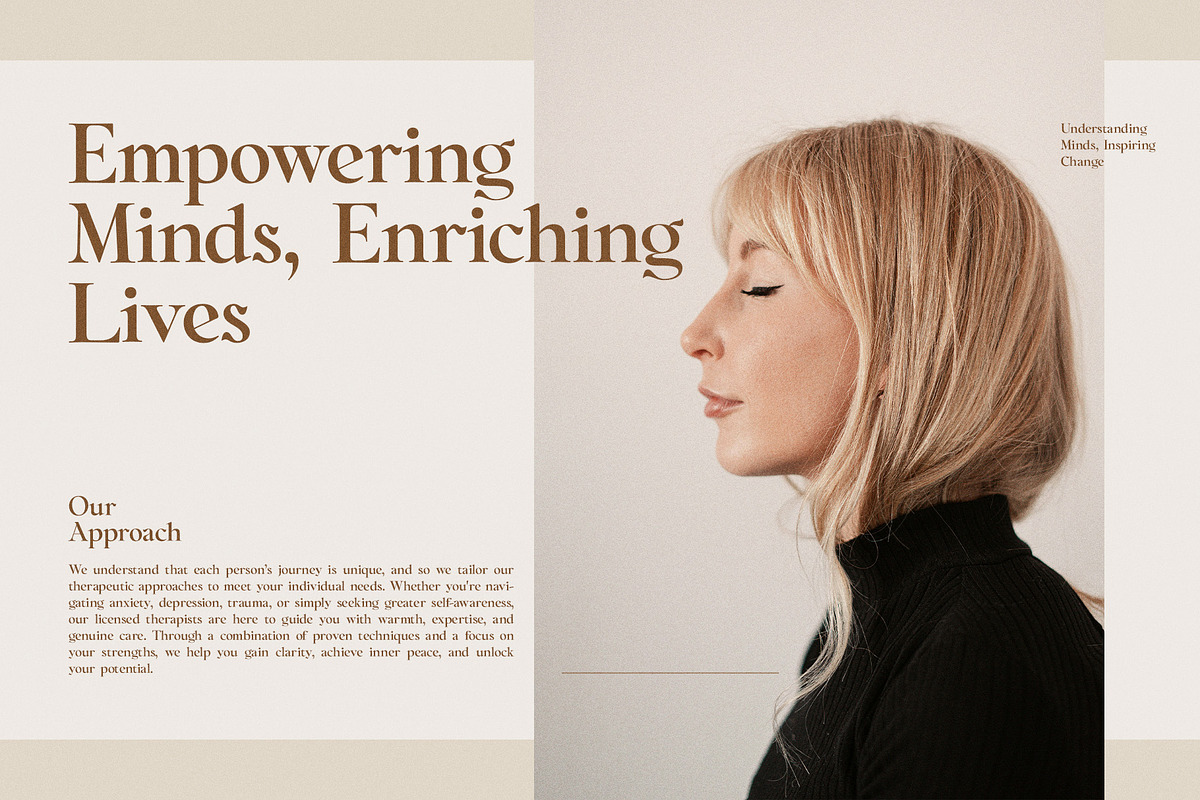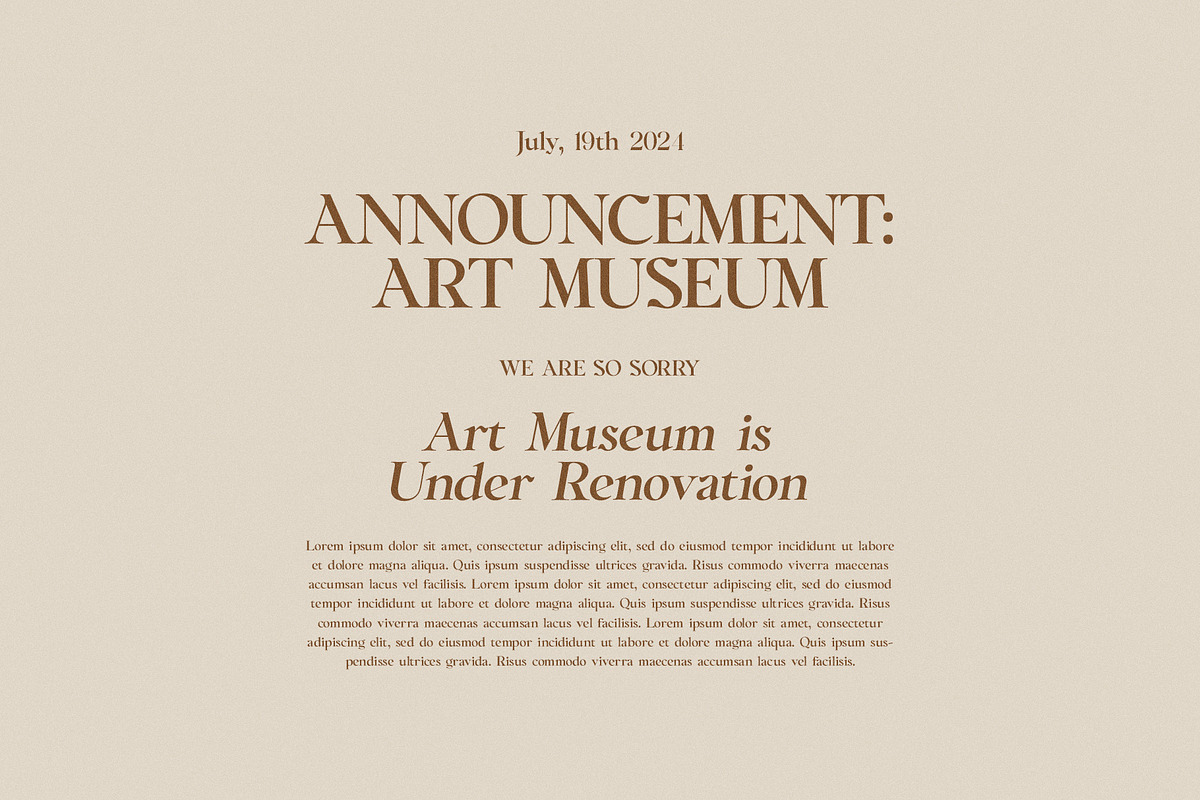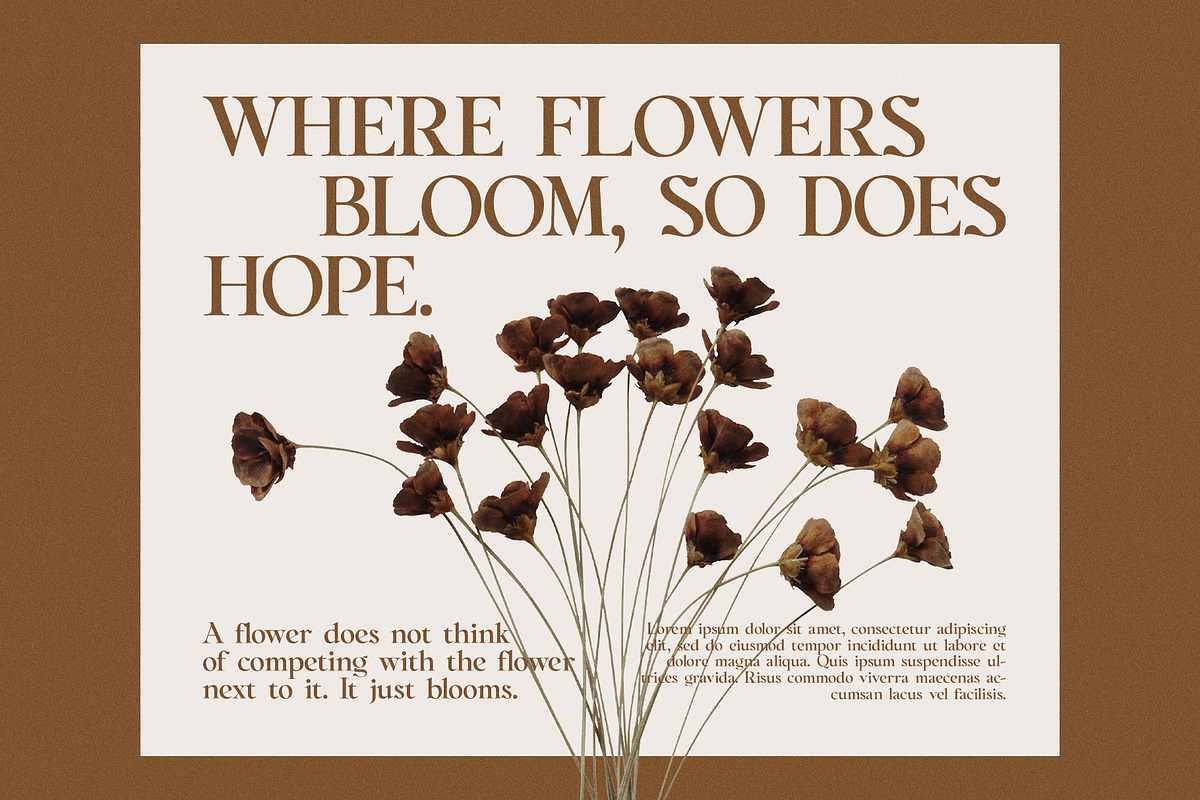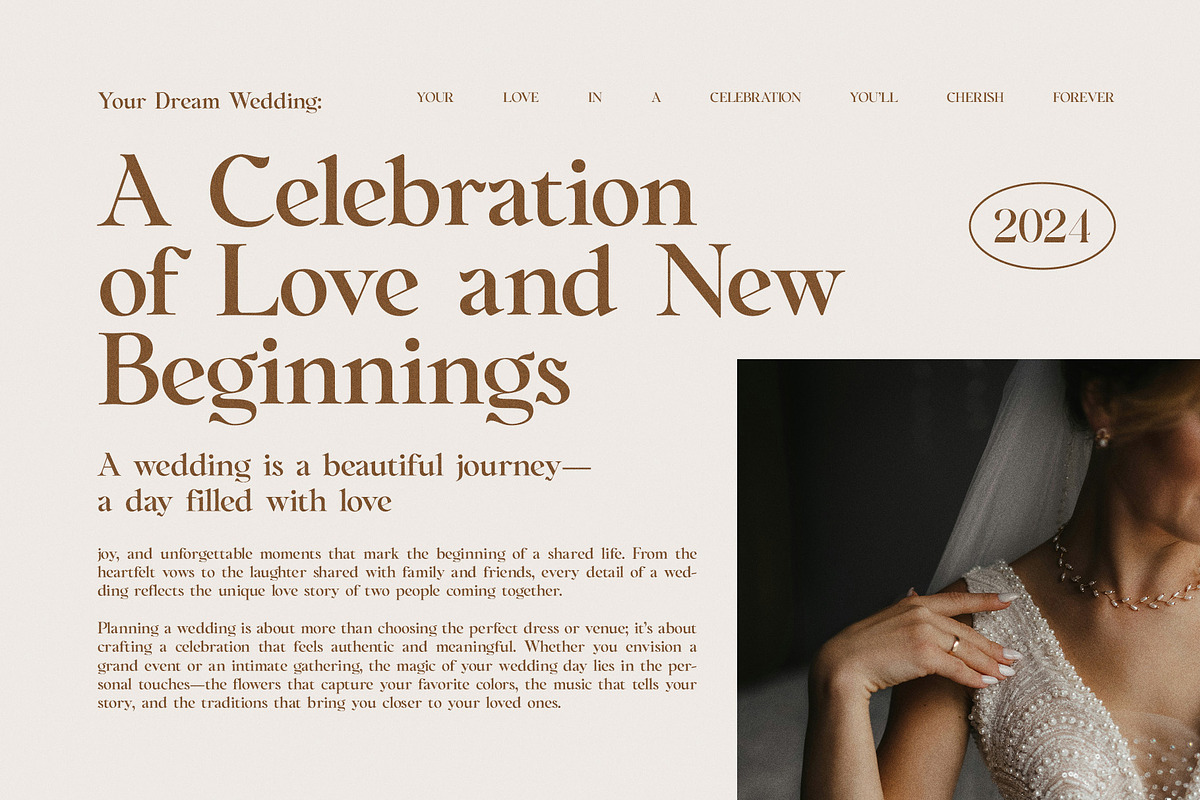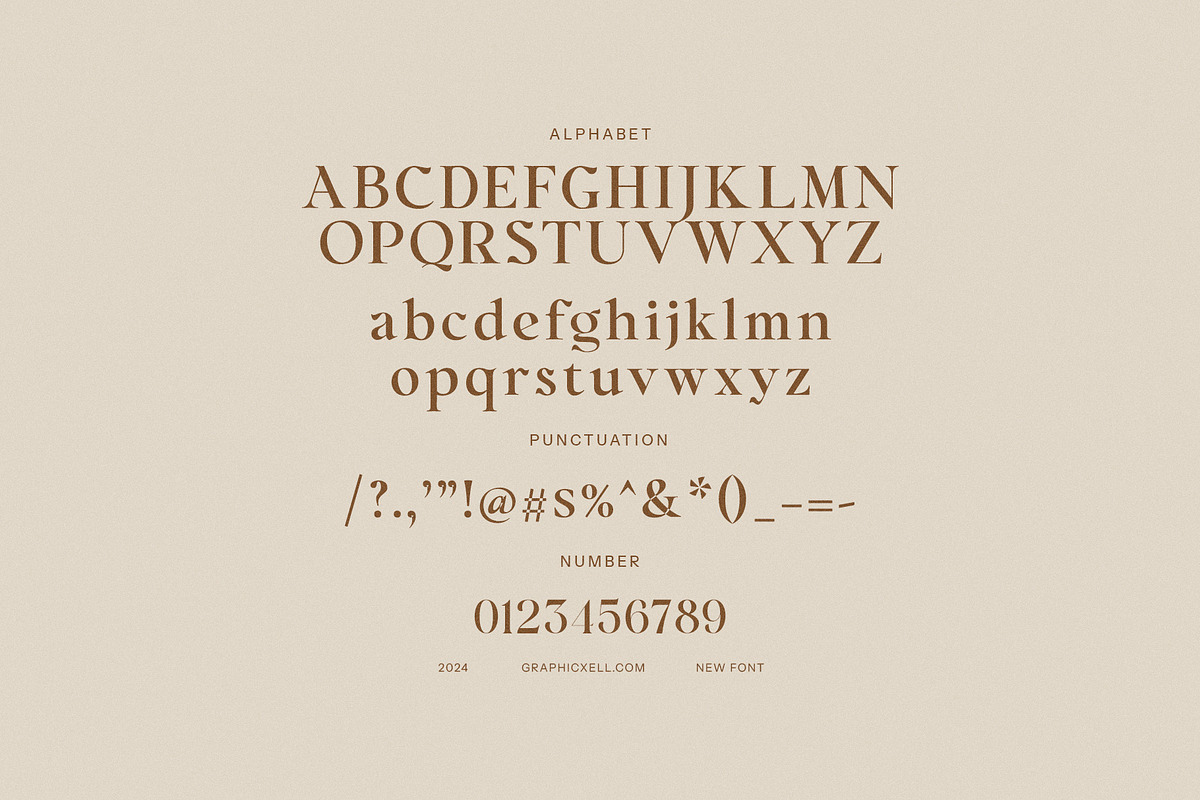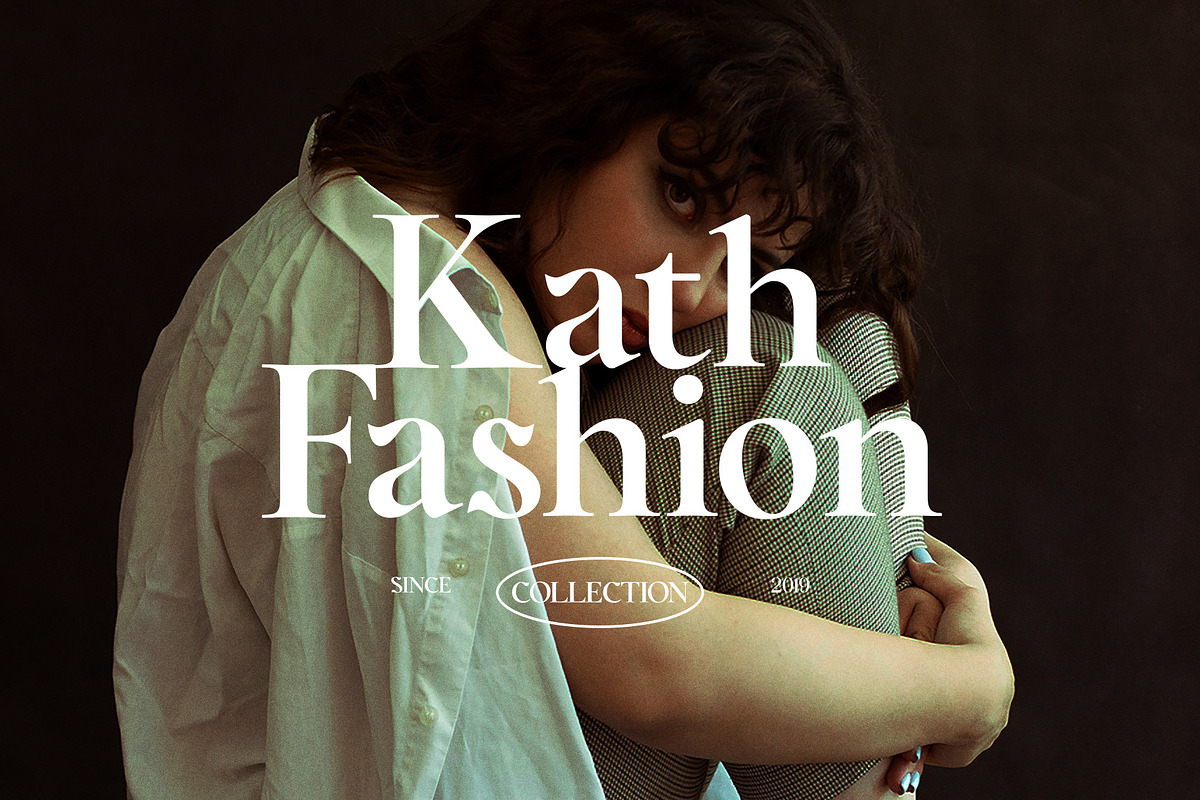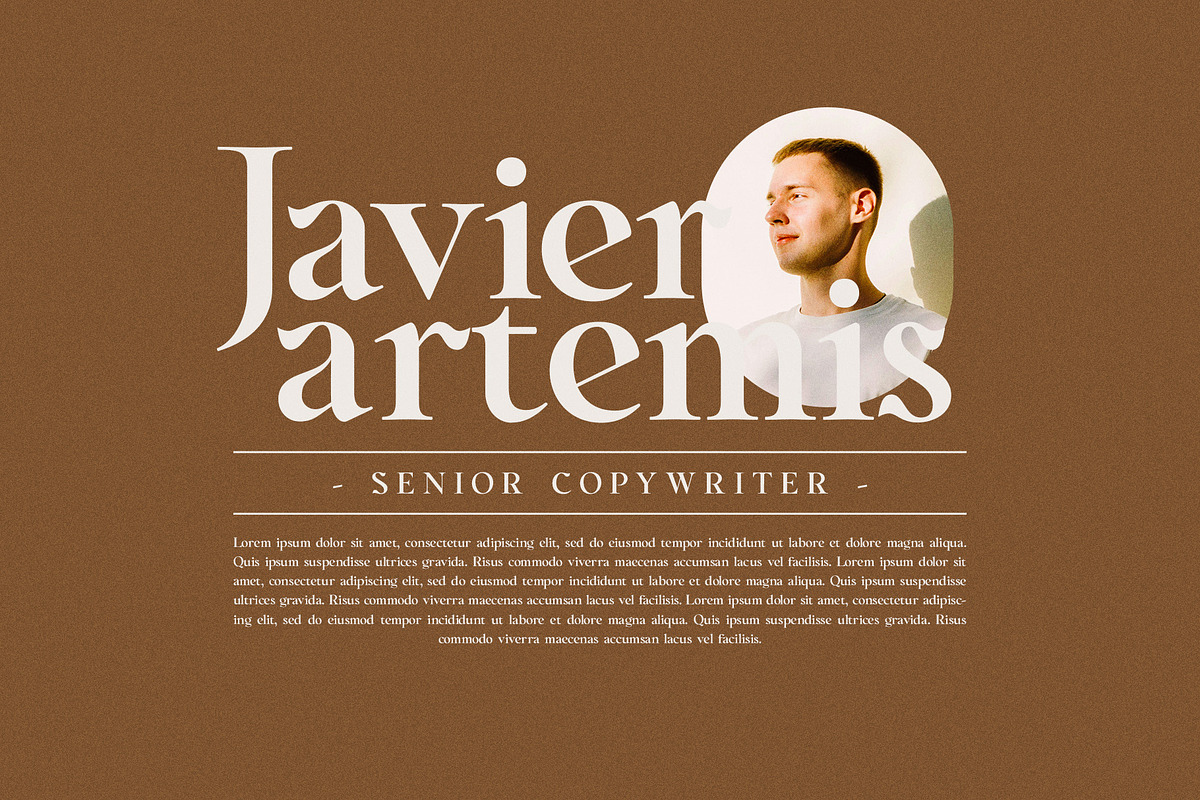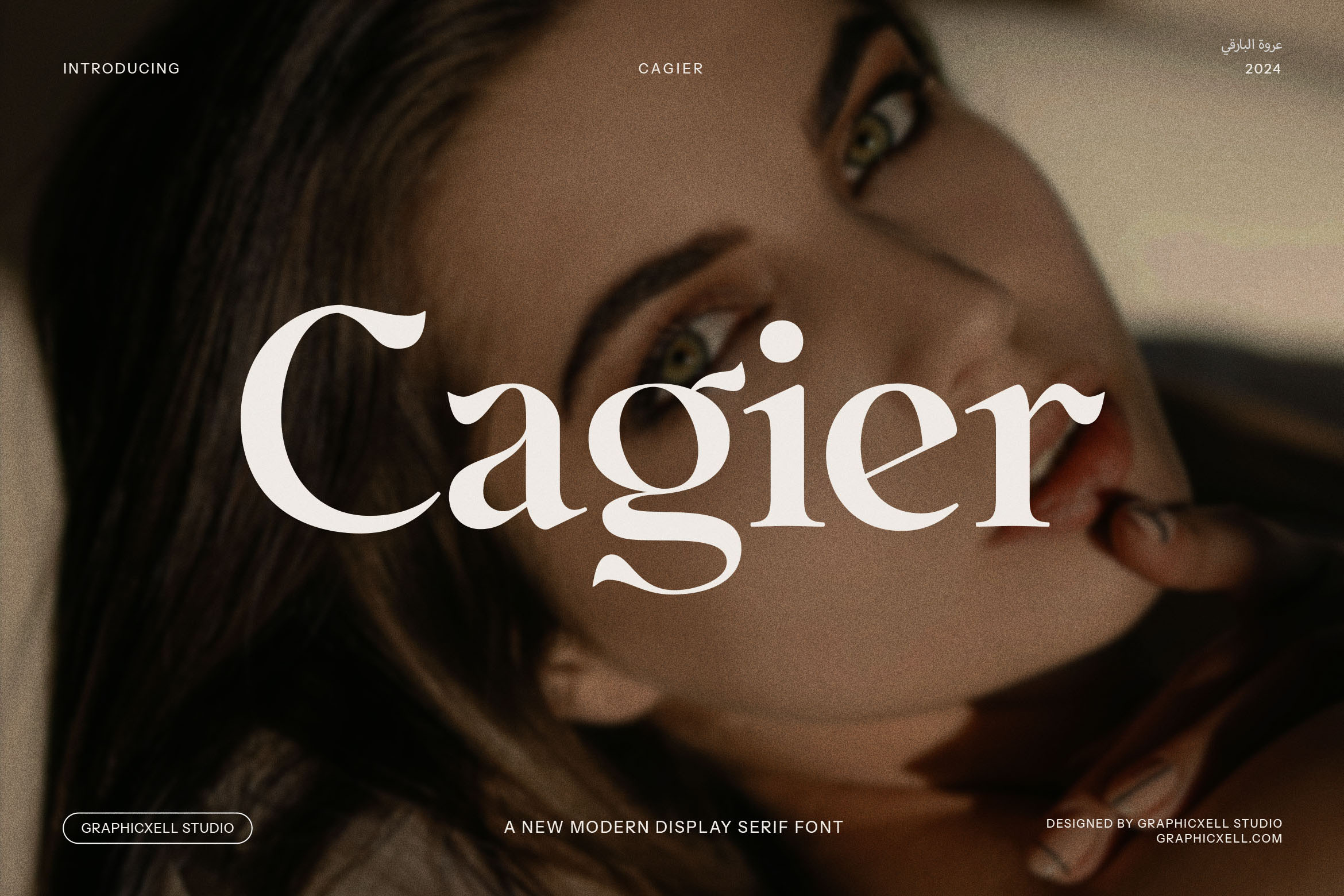
Cagier - Elegant Display Font
Cagier Elegant Display Font – A Stylish Blend of Modern Elegance and Vintage Flair
Introducing Cagier Elegant Display Font, a sophisticated serif typeface designed to bring a sense of timeless elegance to your designs. With its refined curves and distinctive style, this modern font embodies a perfect balance of vintage charm and contemporary sophistication, making it a versatile choice for any creative project.
Whether you're crafting a luxury brand, designing a logo, or working on premium product packaging, Cagier offers a unique touch that elevates your work. Its beautiful, high-contrast serifs and carefully crafted letterforms give it an air of elegance, making it ideal for branding, websites, magazines, and advertisements that require a striking visual identity.
The font's vintage appeal adds character to projects, while its modern design ensures readability and versatility across both print and digital mediums. Cagier is perfectly suited for use in boutiques, high-end food branding, and exclusive events, where a touch of refinement is needed to capture attention and convey luxury. Its graceful lines make it a standout choice for magazine layouts and advertisement campaigns aiming to evoke a sense of sophistication.
Whether you are designing for fashion, food, or luxury lifestyle brands, Cagier Elegant Display Font enhances your visual storytelling with its timeless beauty. Perfect for branding, logos, and web design, it’s a font that exudes both elegance and personality, ensuring your projects make a lasting impression. Let Cagier bring your creative vision to life with style and grace.